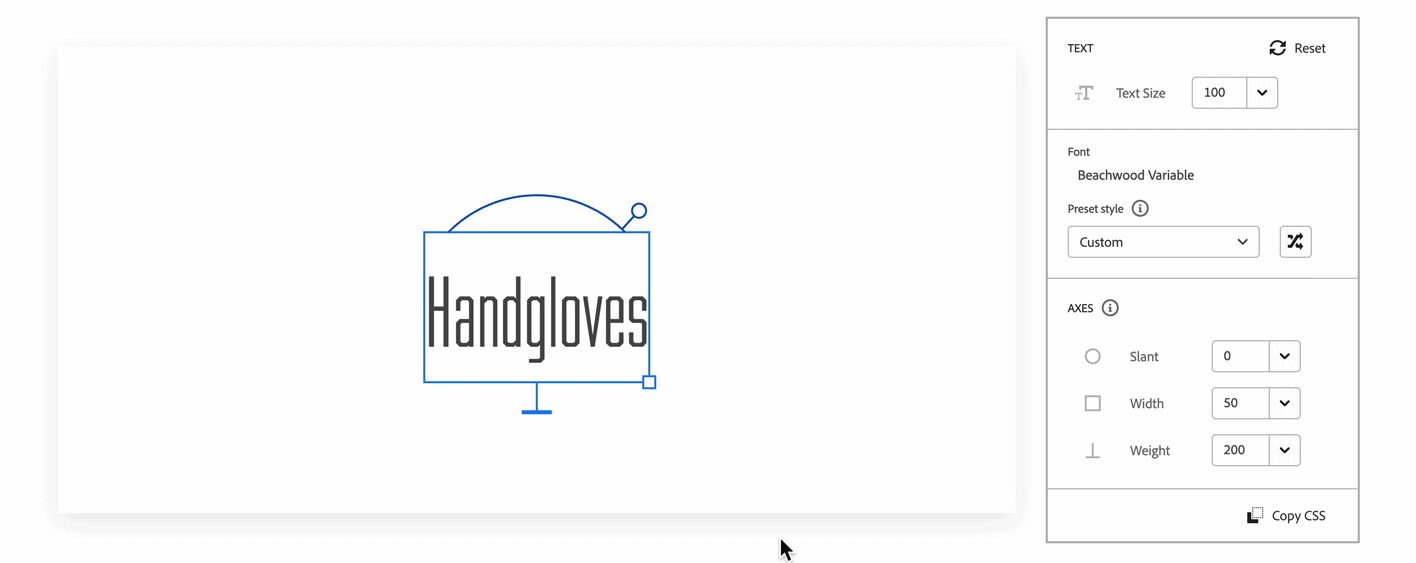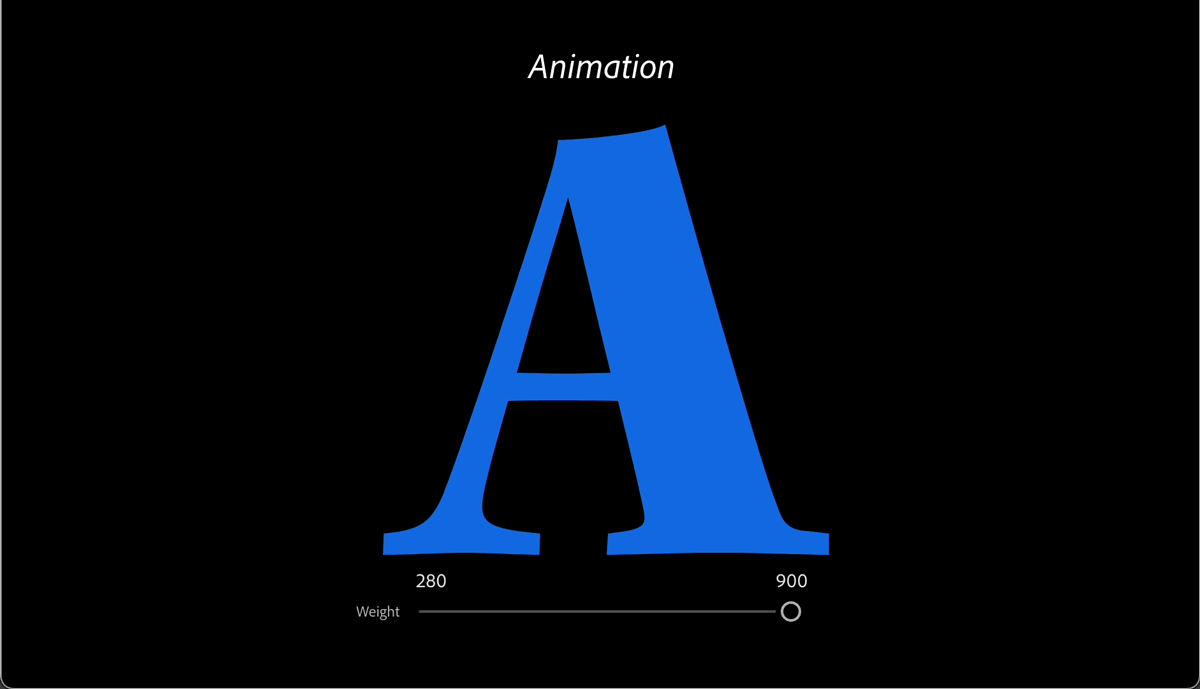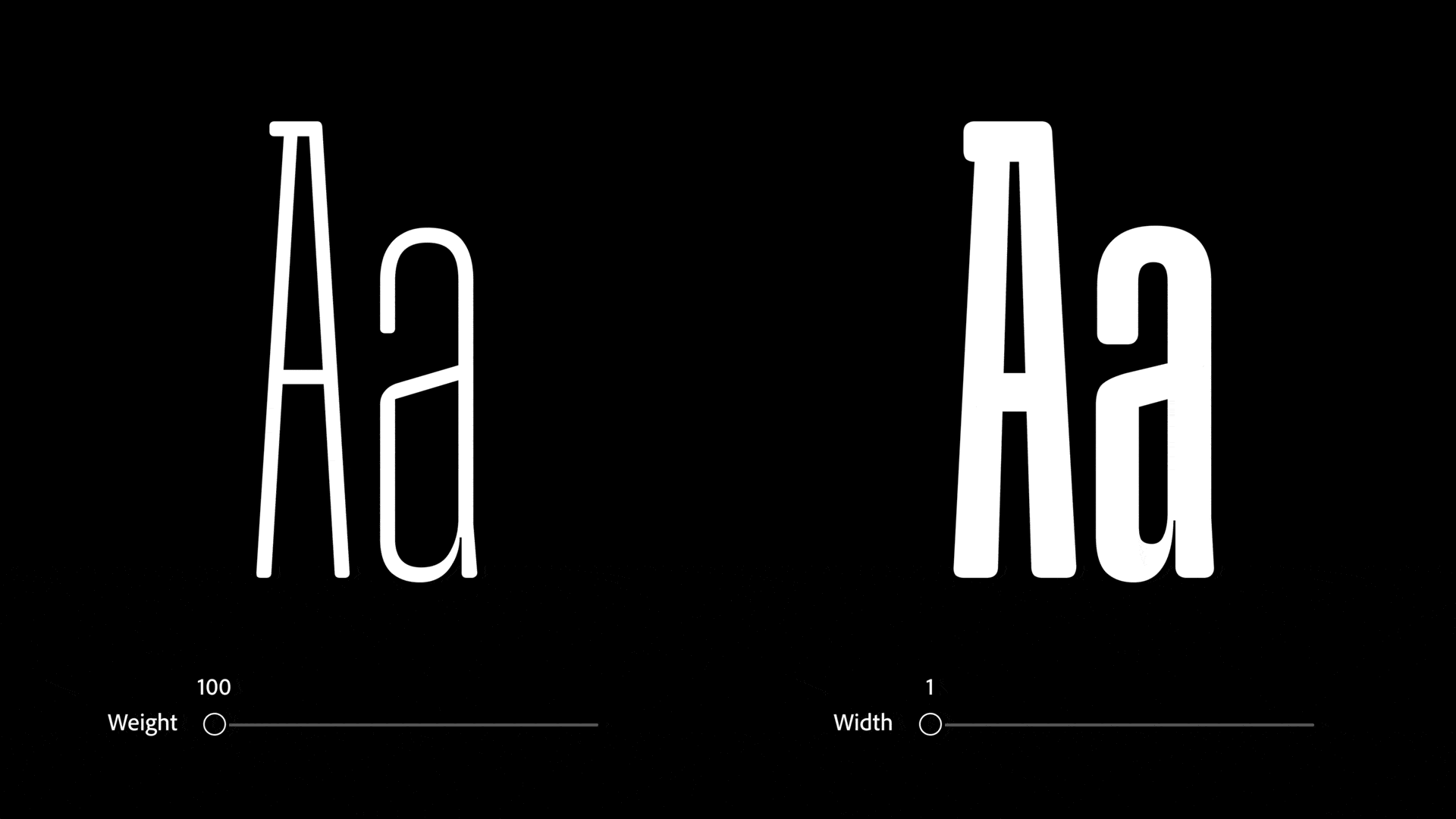
Use variable fonts from Adobe Fonts
Variable fonts are a highly customizable font technology. The Adobe Fonts variable font panel allows you to adjust the appearance of variable fonts and choose the best style to suit your projects. Creative Cloud apps that currently support variable fonts are Photoshop, InDesign, and Illustrator.
What are variable fonts?
Variable fonts use one file to store many font styles, as opposed to static fonts which use separate files for every style available. They allow you to specify a value for each design axis of a font, giving you control over the font’s appearance that static fonts are not capable of.
Traditional static fonts require you to add or install each individual style that you would like to use in your project. For example, with Acumin Pro, you might add Acumin Pro Regular, Acumin Pro Italic, and any other styles you want access to. Acumin Variable contains all styles of Acumin, so you would only need to add one font.
Acumin Pro, a static font with over 18 individual styles that each needs to be added to use. Alternatively, Acumin Variable has Slant, Weight, and Width axes available for you to customize with one font addition.
Each configuration of a variable font is called an instance. Instances are preset styles created for quick access. The variable font panel pictured above shows that Acumin Variable is set to a default instance — a predetermined setting all variable fonts fall back on prior to customization.
Further down the panel are the axis controls. Axes represent a continuous range of style variations. One variable font can contain multiple axes. You can customize an axis to any number within its minimum or maximum range. In the example of the Acumin Variable, the axes are Slant, Weight, and Width.
How to use variable fonts on the Adobe Fonts website
Every family detail page for variable fonts on the Adobe Fonts website includes an interactive text tool and panel that allows you to customize the font to your desired style. You can choose a preset instance to quickly manipulate or create your own.
Add a variable font to a web project
To save a variable font in your web project, select add to web project above the variable font panel on the family page. Ensure the correct font is selected; some variable fonts have additional fonts within their family.
Select Copy CSS at the bottom of the panel to grab the code corresponding to the custom instance you create. The code will reflect a default instance if there are no custom settings.
You can bookmark the browser URL after customizing a variable font to revisit your last custom settings later, or select Copy URL to share or save your configuration.
Variable fonts in use
The customizable nature of variable fonts makes them perfect for a variety of applications, from digital graphics to product packaging or even vehicle wrapping. By adjusting the width, a font can be arranged so it is still readable on irregular surfaces.
Creative variable font settings can bring out a brand personality or accommodate long titles that often don’t fit in lower-third graphics.
Slant, weight, and width axes are used to adjust Obviously Variable to fit the car door panels. Acumin Variable is used for long lower-third titles.
You can use variable fonts to create a visual hierarchy on billboards and posters or tailor the variable font to tiny spaces and odd shapes in package design.
Acumin Variable is used to create visual hierarchy
Minion Variable’s Weight and Optical size axes are used to create visual hierarchy
Variable fonts shine by creating better line breaking in paragraph justification. The width axis, in particular, allows for more efficient and visually pleasing word spacing.
Kepler Variable’s width axis is used to reduce visible gaps in paragraph justification. The red rectangles show the amount of space that was reduced within each sentence.
Variable font capabilities allow them to perform well in responsive web design. One variable font can be used to adjust from small to large screen sizes, helping retain a small file size and decrease loading time.
Variable fonts are contained in one font file which makes them faster to load on the web
Variable fonts can be used on websites to adjust type as the screen size changes
Code snippets can be added to your CSS so that variable fonts animate, respond to sound, ambient light, or computer system theme. Variable font axes also make variable fonts easier to animate.
Variable fonts movement through the value range of an axis enables animation
Type designers continue to explore new ways to interact and innovate with this font technology.